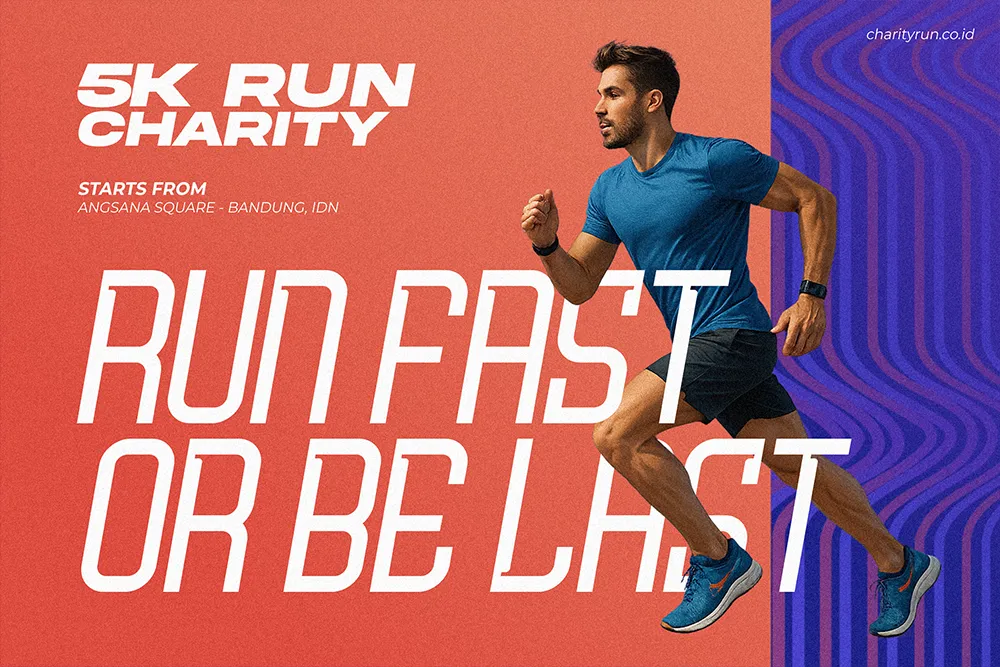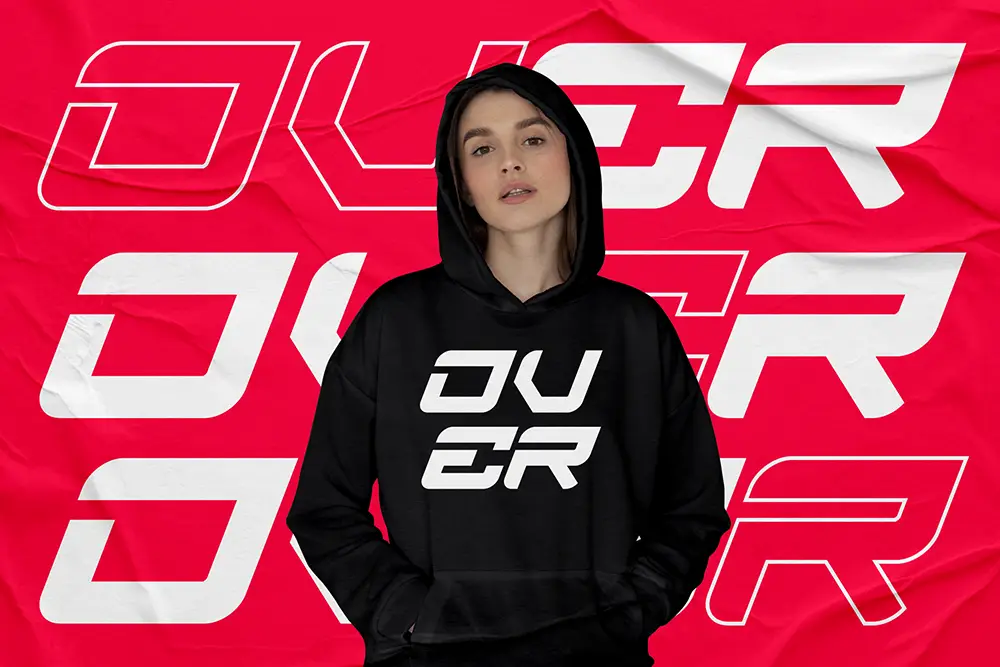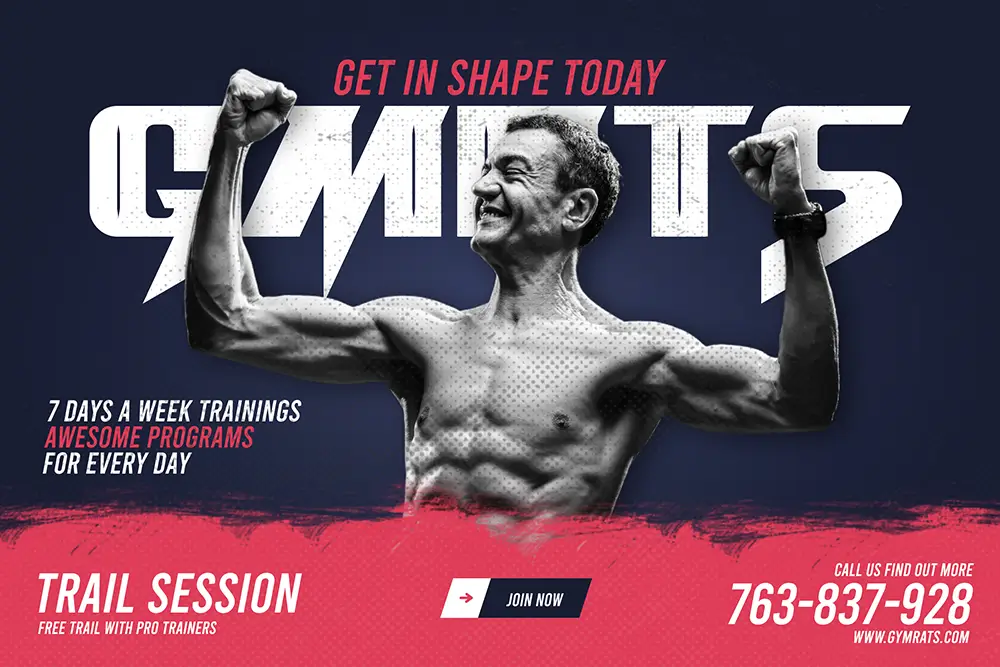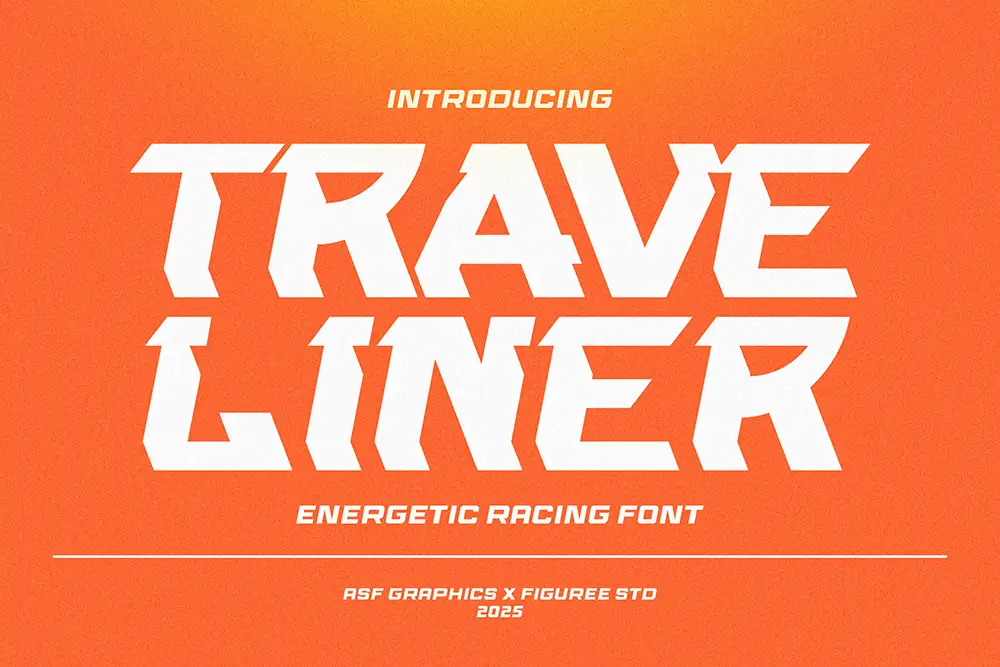
When you run a fitness clothing brand, every detail matters. From fabric quality to logo design, customers judge your professionalism in seconds. One of the fastest ways to build authority and recognition is choosing the right fonts for fitness clothing.
Typography sets the tone—bold fonts show strength, sporty fonts show energy, and clean sans-serifs show professionalism. In 2025, the most successful activewear brands combine these elements to look modern, reliable, and powerful. According to WebDesignerDepot’s typography insights, brands that apply bold sans-serif and sporty display fonts in apparel design gain stronger recognition and better customer trust.
If you’re building your brand identity, here’s our handpicked list of 10 fonts for fitness clothing that make your apparel stand out.
Quinoss is built for speed, strength, and clarity. With its athletic shapes and modern sporty vibe, it’s perfect for fitness clothing logos, jersey numbers, or bold motivational taglines.
Bolde brings balance between sharpness and smoothness. It’s one of the best fonts for fitness clothing if you want your brand to look strong but professional.
Ignazio is clean, modern, and versatile. Perfect for minimalistic activewear branding, this sans serif communicates trust and confidence—ideal for premium gym wear.
Midnight Workers is designed for entrepreneurs and freelancers who grind late at night—but it also works perfectly in fitness clothing fonts. Its sleek, bold letters make apparel branding look powerful yet approachable.
Roads Block gives your brand raw energy. Its heavy strokes—available in solid and textured styles—make it perfect for gym hoodies, bold caps, or weightlifting apparel.
Brake Disc looks fast even when standing still. For fitness clothing brands that lean into adrenaline, racing, or high-intensity training, this font adds the right rush of energy.
Traveliner captures motion with slanted, sharp letterforms. It’s an excellent choice if your brand identity is about agility, speed, and forward momentum.
Sonic Turbo screams action. As one of the boldest fonts for fitness clothing, it works perfectly for energetic sportswear and gym accessories with a futuristic touch.
Metro Beardy mixes retro aesthetics with bold strokes, making it perfect for urban street-gym clothing. It’s vintage yet still delivers a powerful punch.
Monstarch is for fitness brands that want dominance. Its ultra-bold look makes a strong statement on activewear, ensuring your clothing line never goes unnoticed.
Strong brands aren’t just built on fabric—they’re built on perception. The right fonts for fitness clothing trigger emotions of power, resilience, and ambition.
As branding expert Marty Neumeier once said:
“A brand is not what you say it is. It’s what they say it is.”
And Jeff Bezos famously echoed:
“Your brand is what other people say about you when you’re not in the room.”
That’s why typography matters. A bold sans-serif like Bolde says professionalism. A dynamic typeface like Traveliner signals movement. Together, fonts create the language your customers feel—without reading a word.
Typography is the backbone of branding. For fitness entrepreneurs, choosing the right fonts for fitness clothing can mean the difference between looking like a small gym shop and a global activewear label.
Don’t let weak fonts hold you back. Choose bold, sporty, and professional typefaces that empower your clothing line.